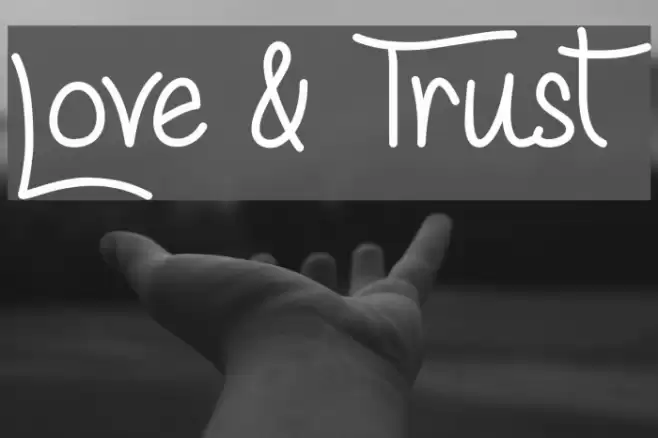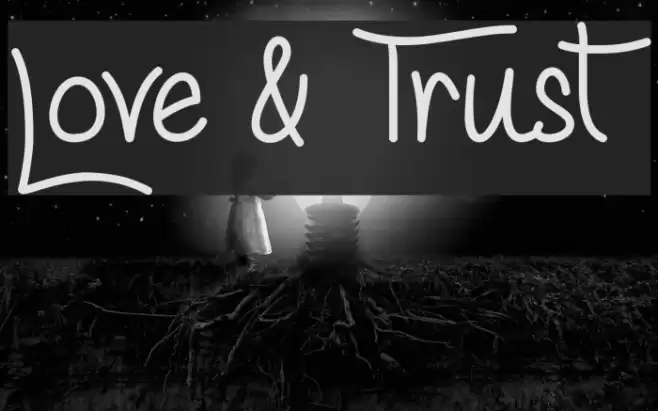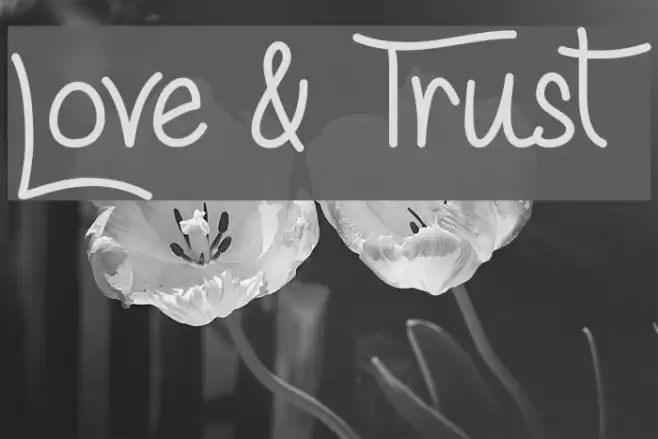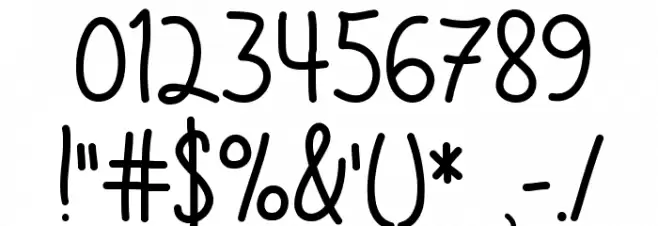
Love & Trust Font
Love & Trust Description
This playful and whimsical font features a handwritten style with a casual and friendly appearance. The letters are characterized by their smooth, flowing lines and slightly irregular shapes, giving them a personal and informal touch. The uppercase and lowercase letters maintain a consistent style, with rounded edges and a slight slant, enhancing the font's approachable feel. The numerals and special characters are designed to match the overall aesthetic, ensuring a cohesive look across all text elements. This font's unique charm makes it suitable for projects that require a personal or creative touch.
A playful handwritten font with smooth, flowing lines and a casual appearance from Uncategorized fonts.
- Proposed Projects: Ideal for greeting cards, invitations, personal branding, and creative projects.
- Overall Style: Casual, Playful
- Use Case: Headlines, Invitations, Personal projects